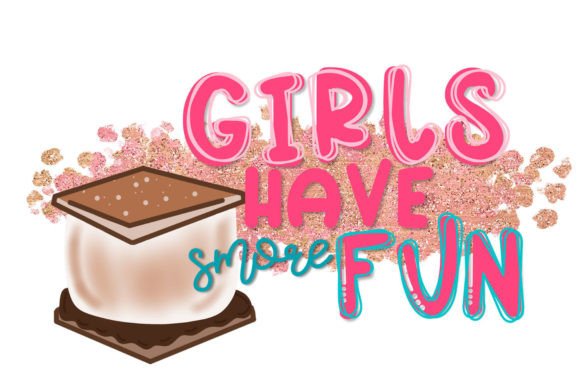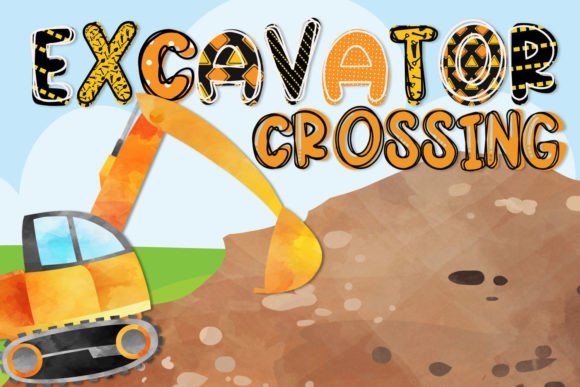
Heifer Please Font: A Fun and Versatile Handwritten Bubble Font
Are you tired of using the same old fonts for your crafting and design projects? Look no further than Heifer Please, a handwritten bubble font that’s sure to add a touch of whimsy and personality to your work. In this article, we’ll take a closer look at Heifer Please, its features, and how you can use it to create unique and eye-catching projects with your Cricut or Silhouette Machine.
Introducing Heifer Please
Heifer Please is a handwritten bubble font that’s perfect for crafters, designers, and anyone looking to add a bit of fun and flair to their projects. This font comes in three styles: Solid, Outline, and Doodle, giving you the flexibility to create a wide range of looks and effects. Whether you’re working on a DIY sign, a party invitation, or a social media graphic, Heifer Please is sure to make your project stand out.
Three Styles to Choose From
One of the best things about Heifer Please is its versatility. With three different styles to choose from, you can create a unique look for each project. Here’s a brief overview of each style:
- Solid: The Solid style is perfect for creating bold and eye-catching text. This style features a filled-in design with no outline, making it great for use on signs, posters, and other projects where you want the text to really pop.
- Outline: The Outline style is ideal for creating a more subtle look. This style features a outlined design with no fill, making it perfect for use on projects where you want to add a bit of texture and interest without overpowering the other design elements.
- Doodle: The Doodle style is a fun and playful take on the traditional bubble font. This style features a hand-drawn, sketchy design that’s perfect for adding a bit of whimsy and personality to your projects.
Project Ideas Using Heifer Please
Heifer Please is a versatile font that can be used on a wide range of projects. Here are a few ideas to get you started:
- Party Invitations: Use Heifer Please to create fun and playful party invitations for kids’ birthday parties, baby showers, and other celebrations.
- DIY Signs: Use Heifer Please to create eye-catching signs for your home or business. This font is perfect for signs, banners, and other display text.
- Social Media Graphics: Use Heifer Please to add a bit of personality to your social media graphics. This font is perfect for creating eye-catching Facebook posts, Instagram stories, and other social media content.
- Crafting Projects: Use Heifer Please to add a personal touch to your crafting projects. This font is perfect for use on scrapbooking pages, card making projects, and other paper crafting projects.
Heifer Please is a fun and versatile handwritten bubble font that’s perfect for crafters, designers, and anyone looking to add a bit of personality to their projects. With its three different styles (Solid, Outline, and Doodle), Heifer Please offers a wide range of creative possibilities. Whether you’re working on a DIY sign, a party invitation, or a social media graphic, Heifer Please is sure to make your project stand out. So why not give Heifer Please a try and see what amazing projects you can create?